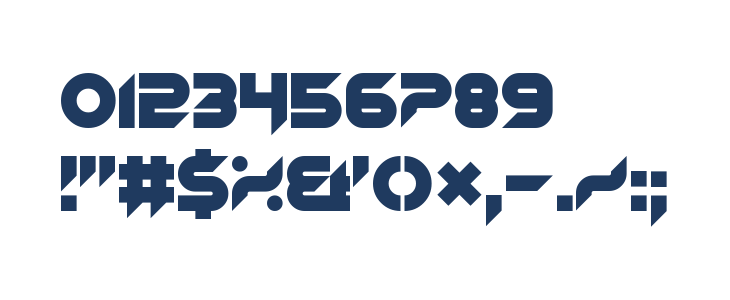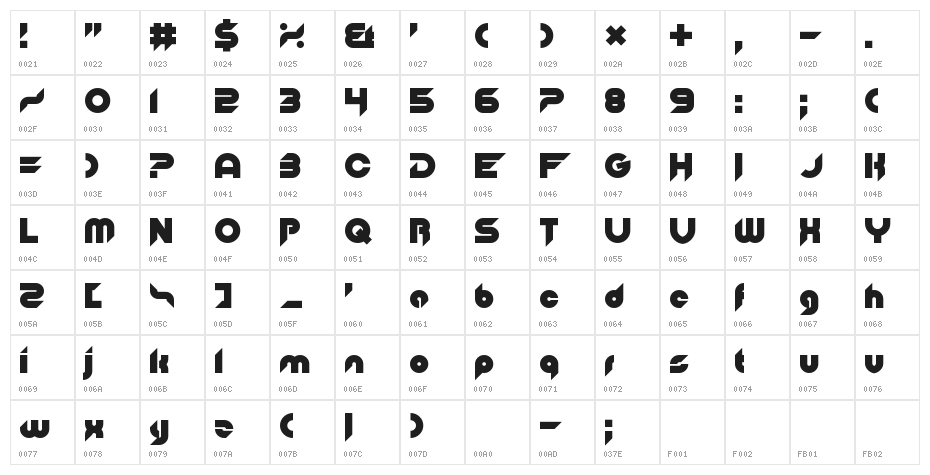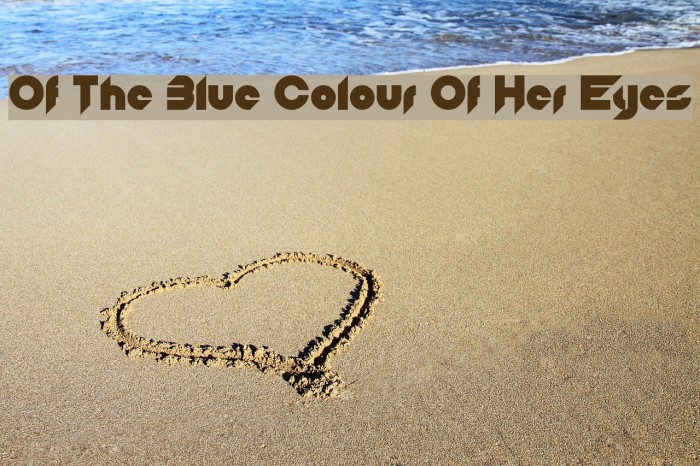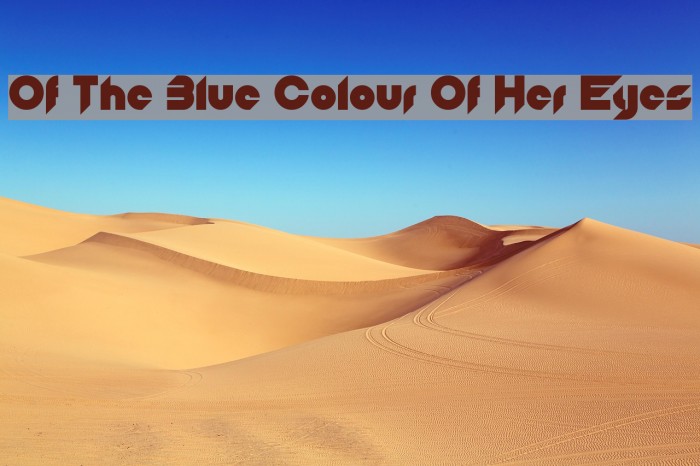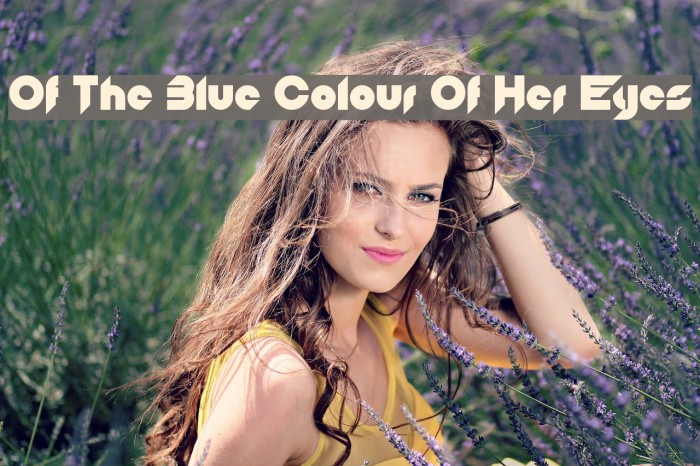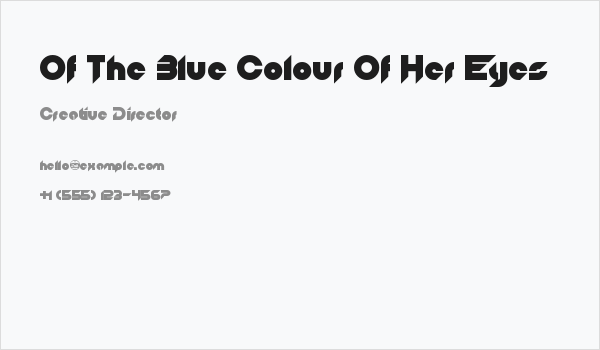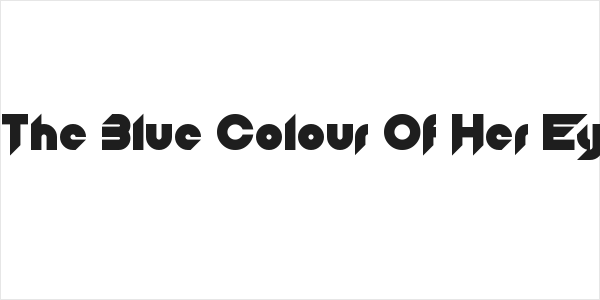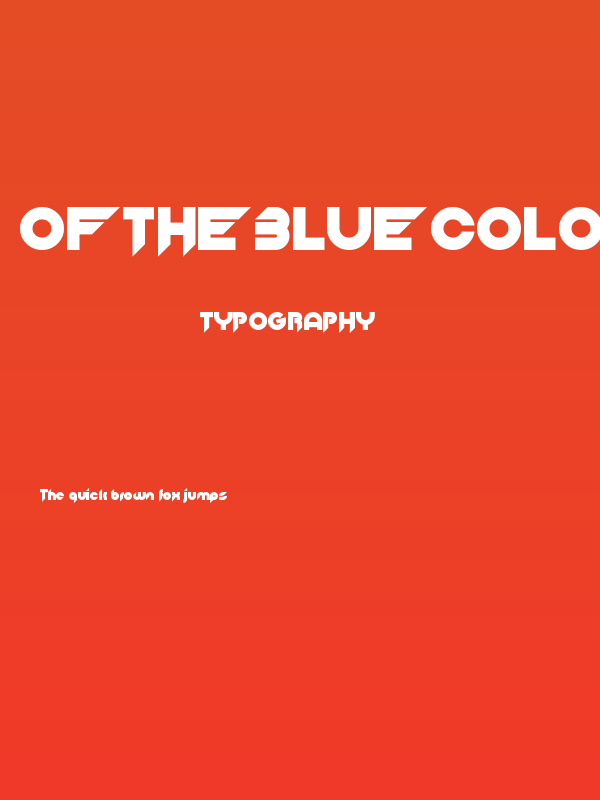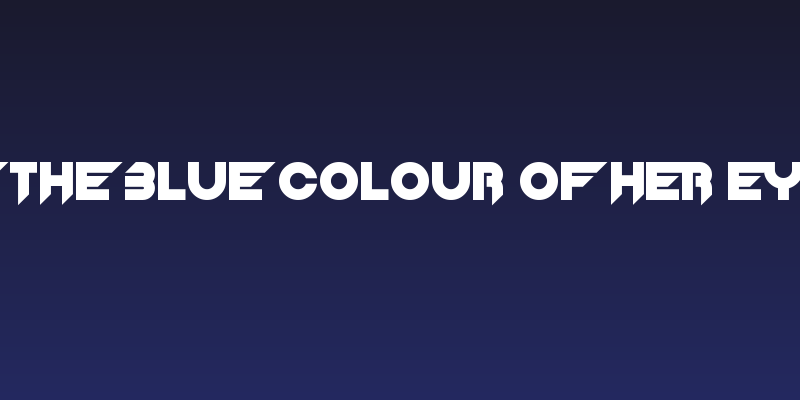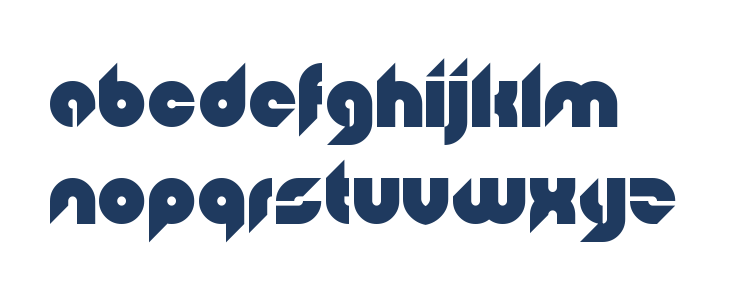
Of The Blue Colour Of Her Eyes Font
Of The Blue Colour Of Her Eyes Description
This font features a bold and geometric design with sharp angles and a futuristic aesthetic. The characters are constructed with a combination of straight lines and curves, creating a dynamic and edgy appearance. The uppercase and lowercase letters maintain a consistent style, with unique cutouts and angular shapes that give the font a distinctive look. The numbers and special characters follow the same design principles, ensuring a cohesive visual identity across all elements. This font's boldness and modern style make it suitable for attention-grabbing headlines and creative projects.
| Proposed Projects | Ideal for sci-fi themed designs, modern branding, and eye-catching headlines. |